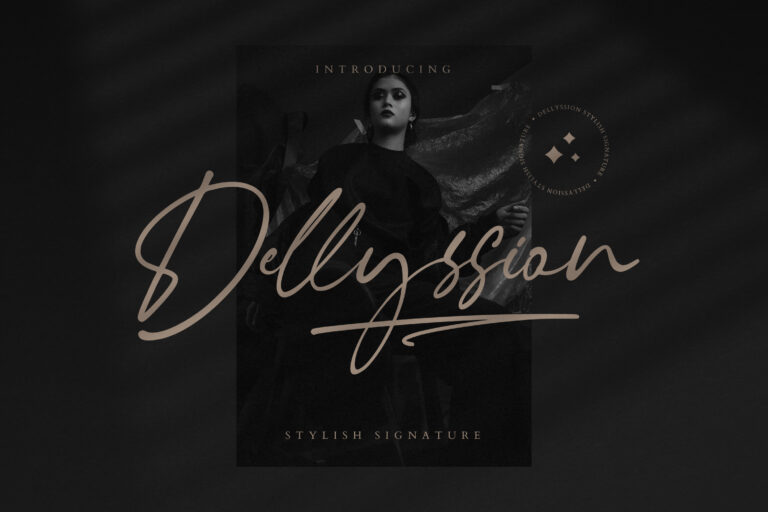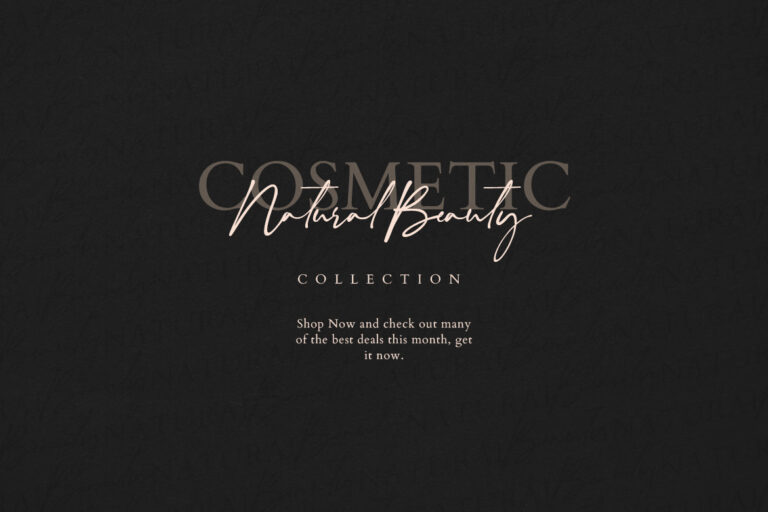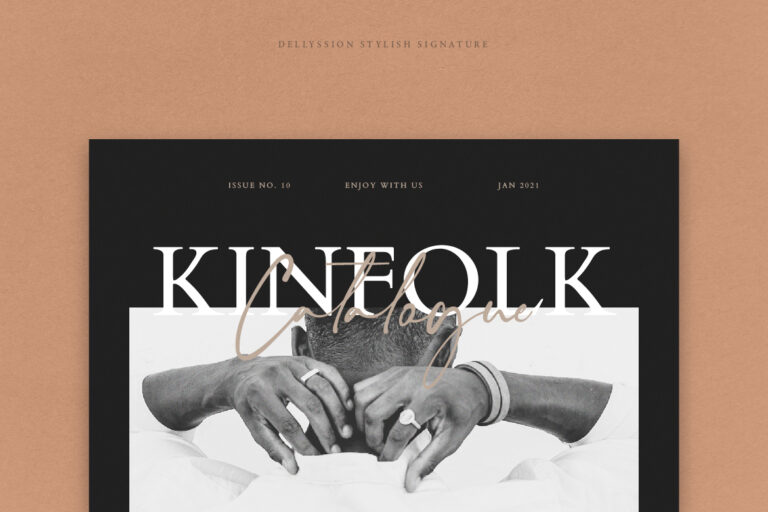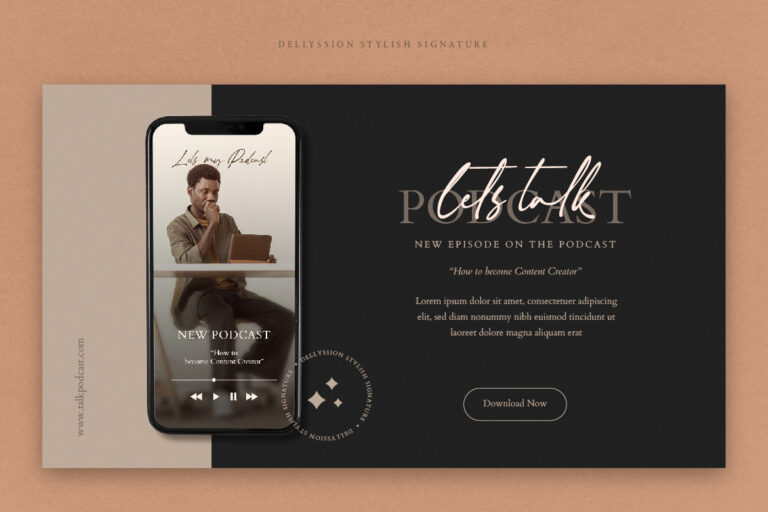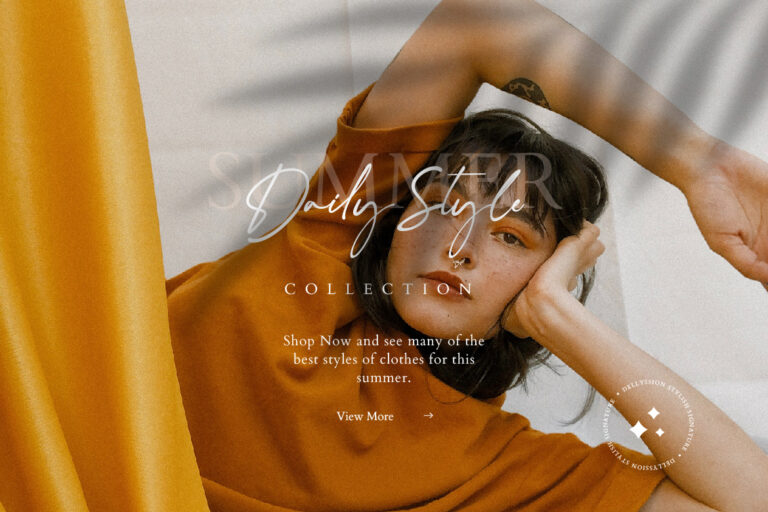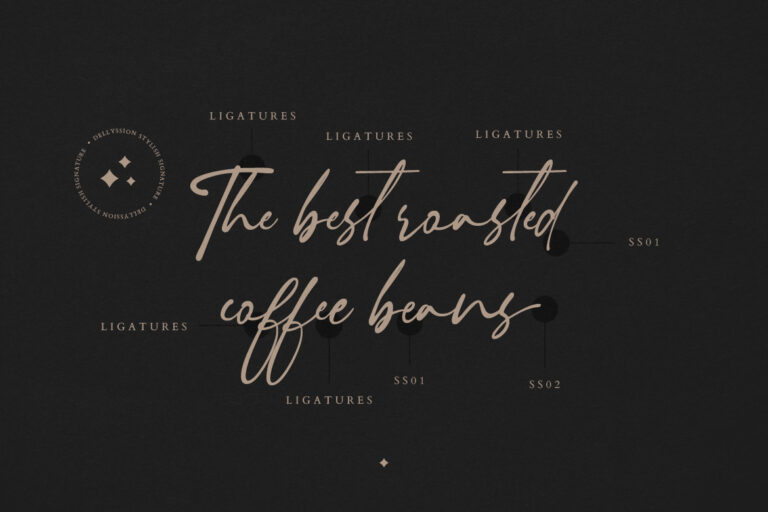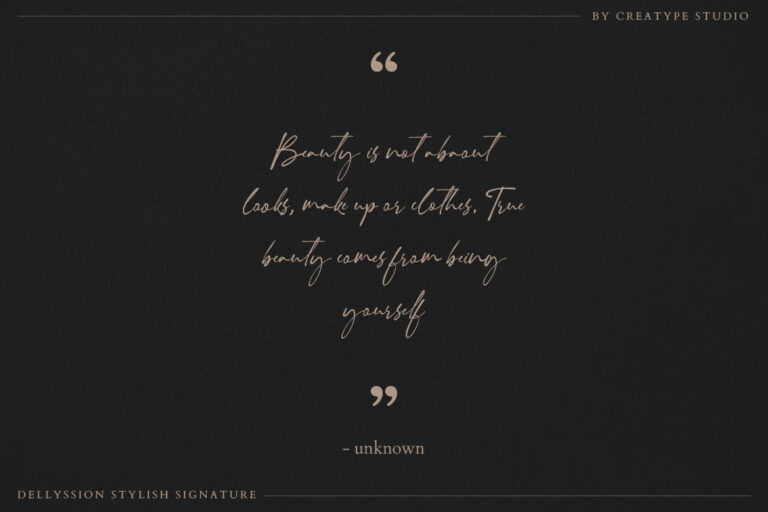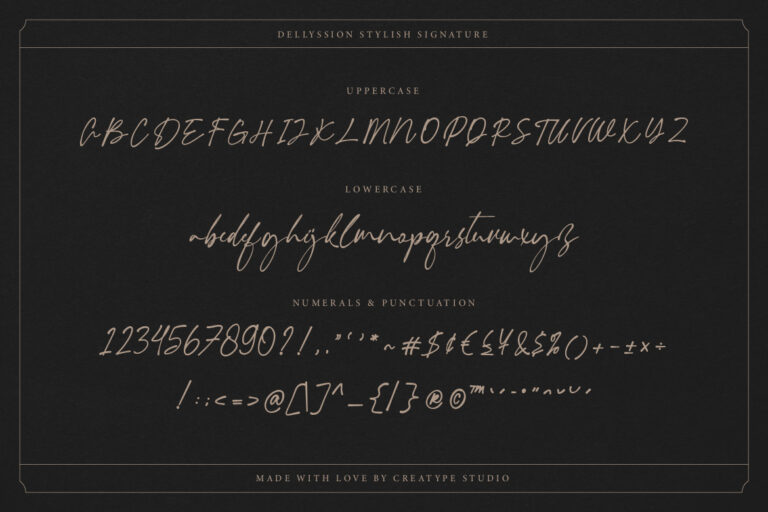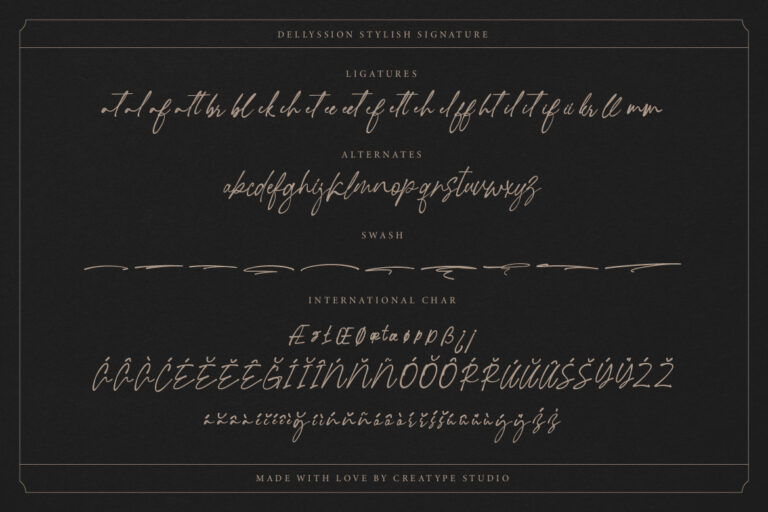
Dellyssion Stylish Signature is a handwriting script font which looks very elegant and stylish. Dellyssion typeface is perfect for projects with a perfectly handwriting feel.
- Ligature, Alternate & Swashes
Dellyssion Stylish Signature